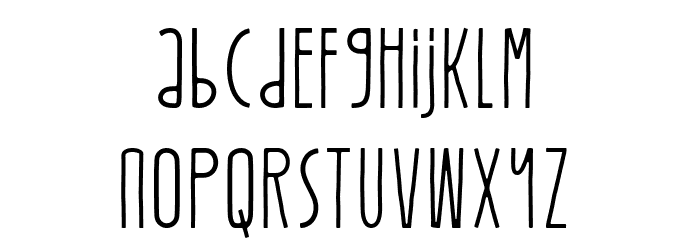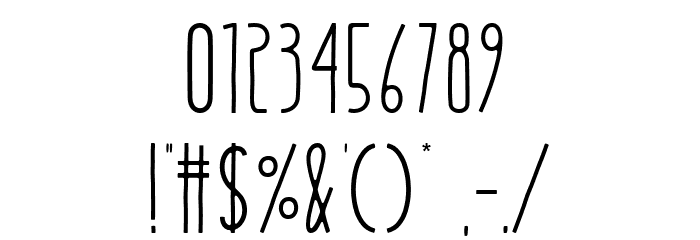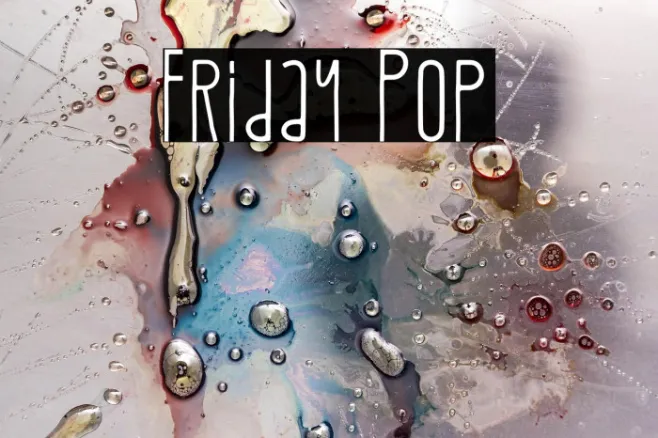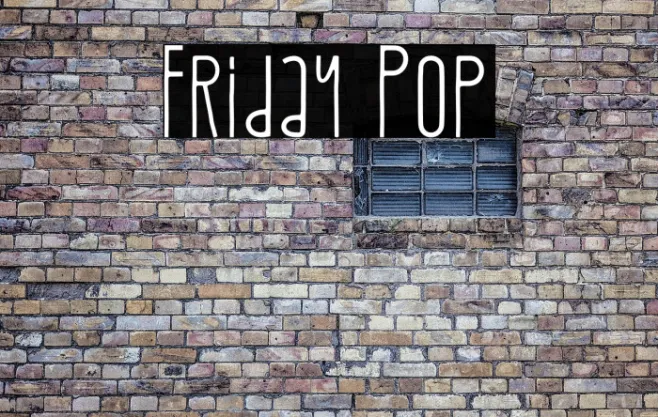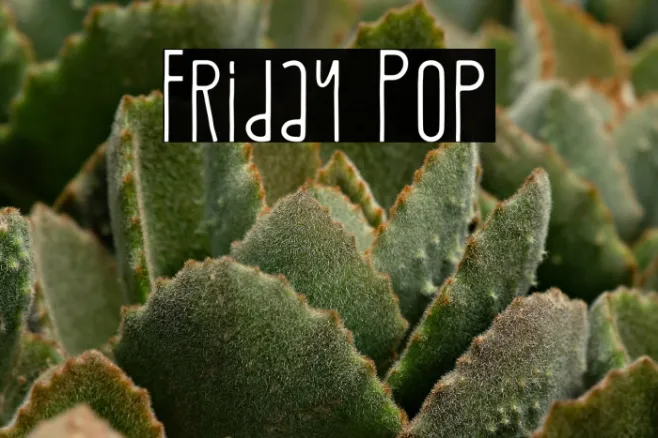
Friday Pop Font
This font features a playful and quirky design with tall, narrow characters that have a hand-drawn appearance. The strokes are uneven, adding a whimsical touch to the overall style. The uppercase letters are elongated, while the lowercase letters maintain a consistent height, contributing to a unique visual rhythm. Numbers and special characters follow the same slender and slightly irregular form, enhancing the font's distinctive personality. This font is ideal for projects that require a fun and informal look, such as children's books, party invitations, or creative branding.
A playful, hand-drawn font with tall, narrow characters and a whimsical style.
- Proposed Projects: Children's books, party invitations, creative branding, casual posters.